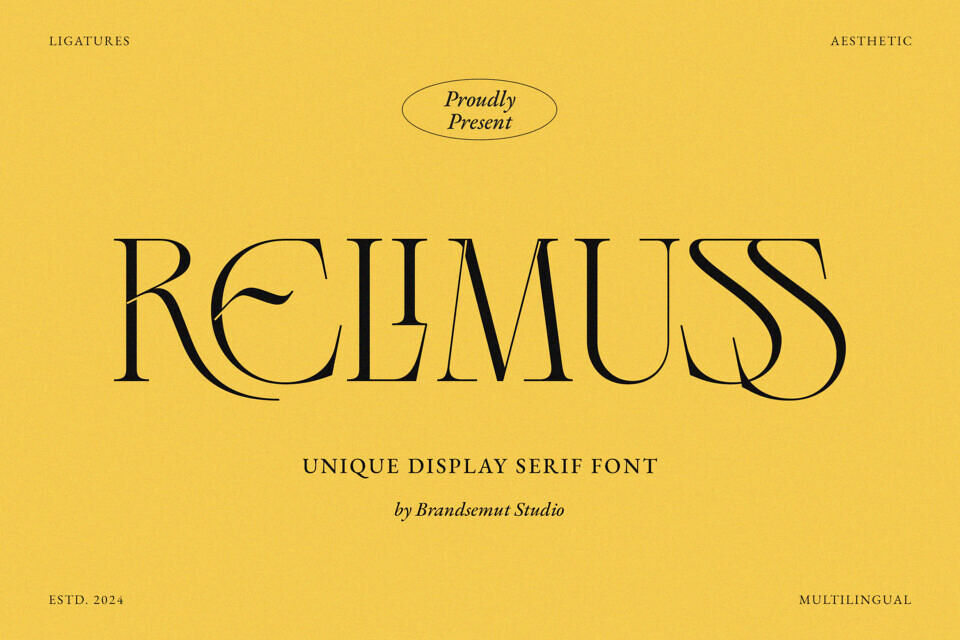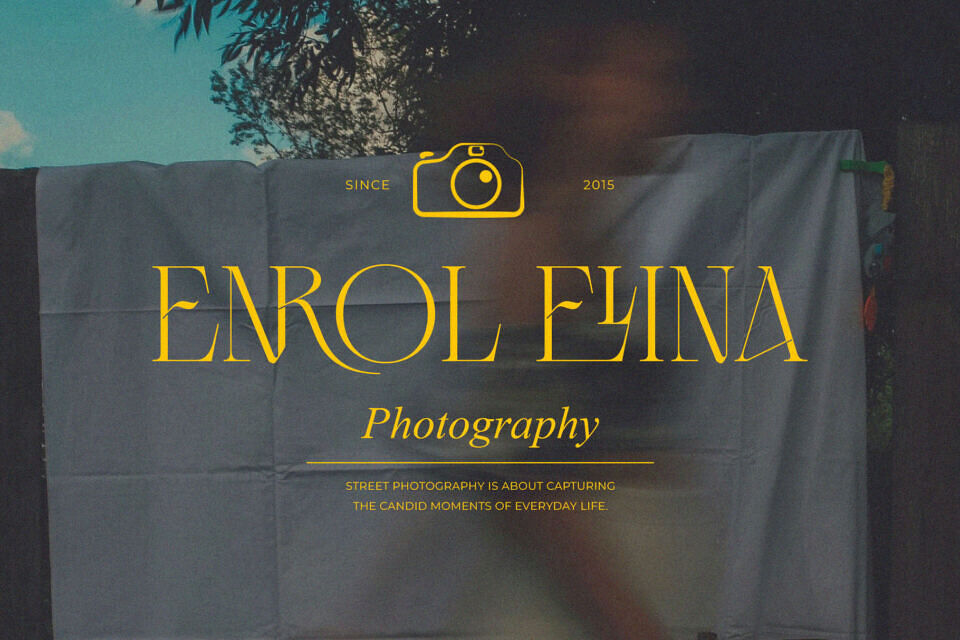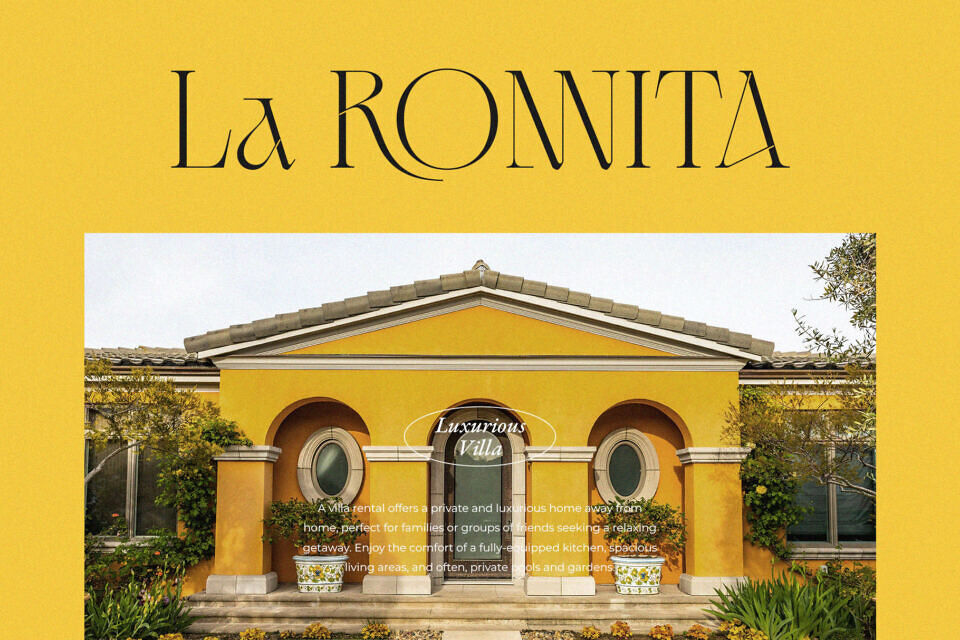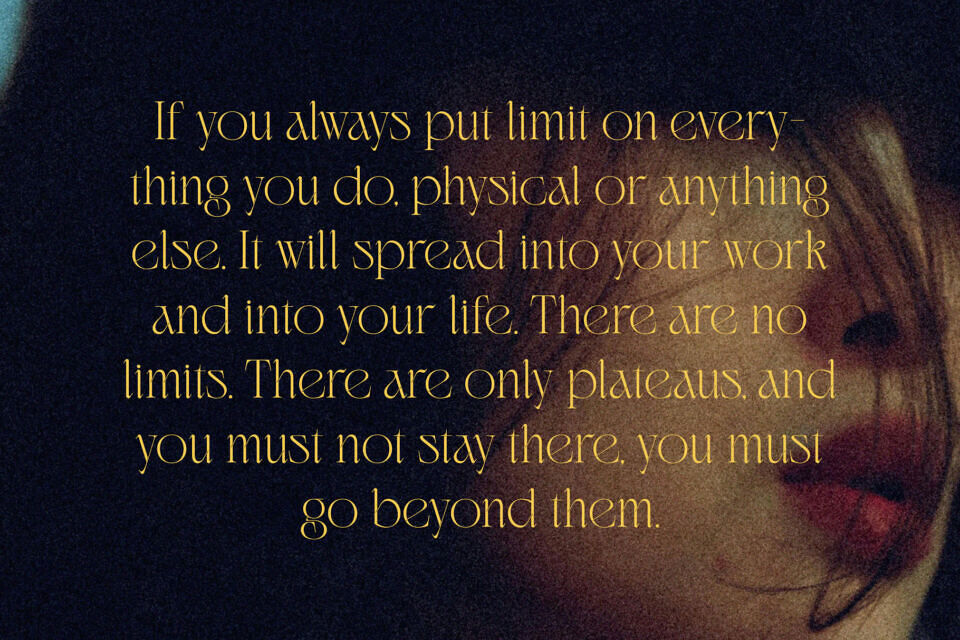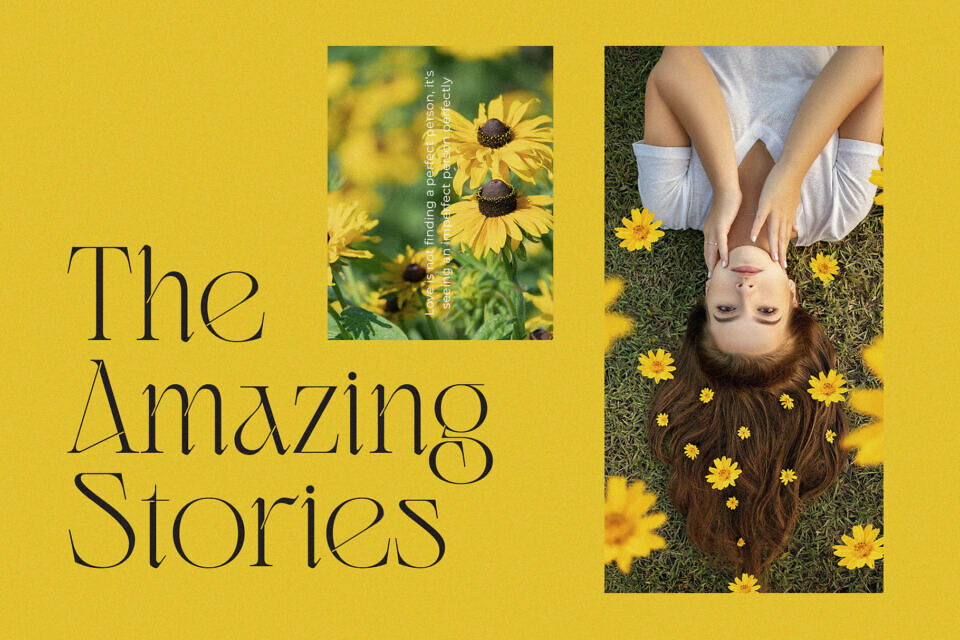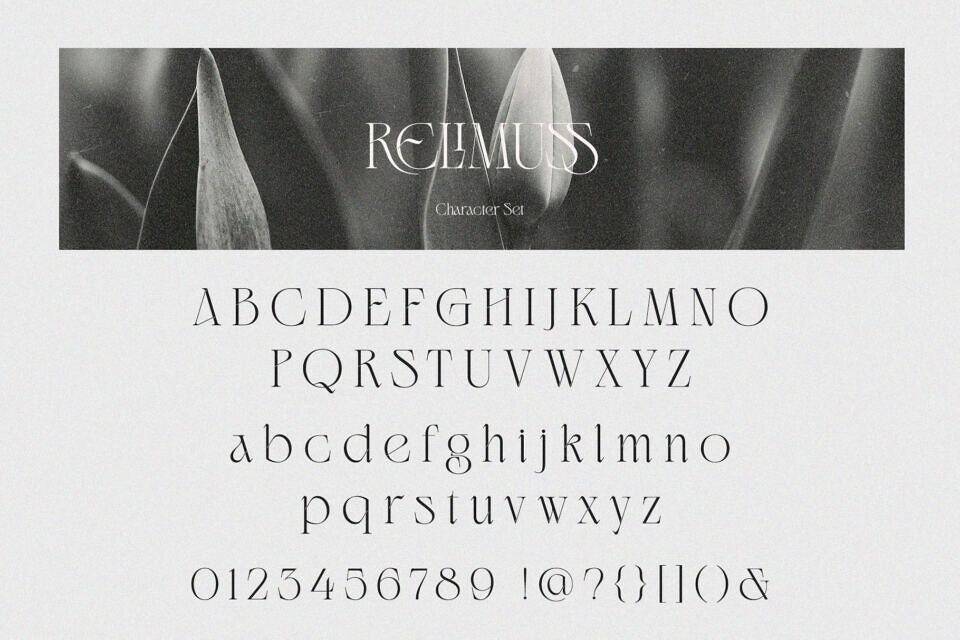
Relimuss Font
Relimuss is a modern and classy typeface, best used as a display for headings, logos, branding, magazines, product packaging and invitations. Relimuss come with clean lines and smooth curves give any project an extra touch of class.